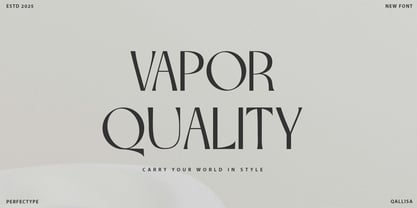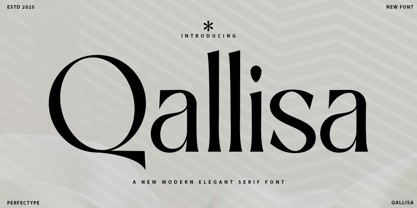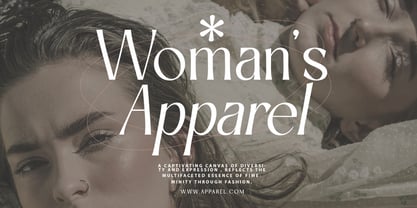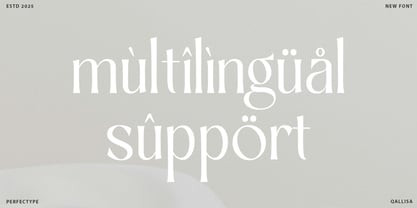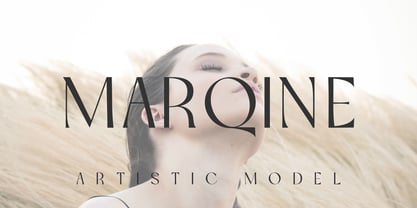
Qallisa
by madjack.font
The Qallisa Font Family was designed by Zaki Muhammad and published by madjack.font. Qallisa contains 2 styles and family package options.
Qallisa is an elegant and feminine sans serif with a touch of modern look and feel. This font type is perfectly made to be applied especially on logos, headlines, signage, and various other formal forms such as invitations, labels, logos, magazines, books, greeting/wedding cards, packaging, fashion, makeup, stationery, novels, labels, or any type of advertising purposes.
Features:
Full uppercase and lowercase alternates
Alternatives and Ligatures
Letters, numbers, symbols, and punctuation
Multilingual Support
Designers: Zaki Muhammad
Publisher: madjack.font
Foundry: madjack.font
Design Owner: madjack.font